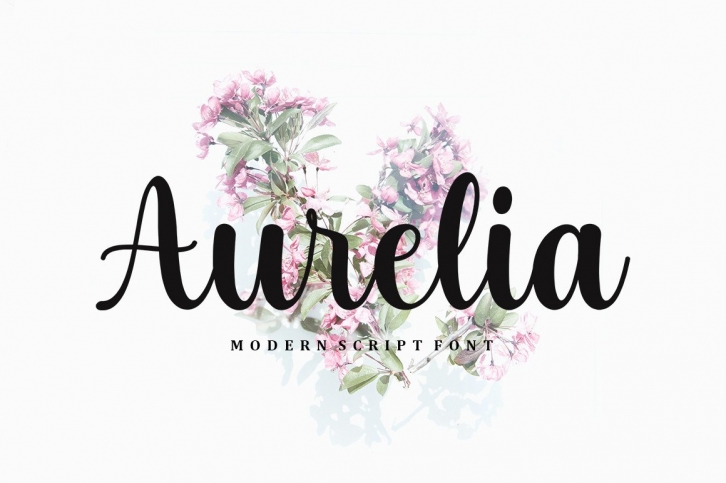
Aurelia is a simple and lovely handwritten font. This versatile font has a wide spectrum of applications ranging from greeting cards to headlines and is guaranteed to add a simple and natural feel to your next project!